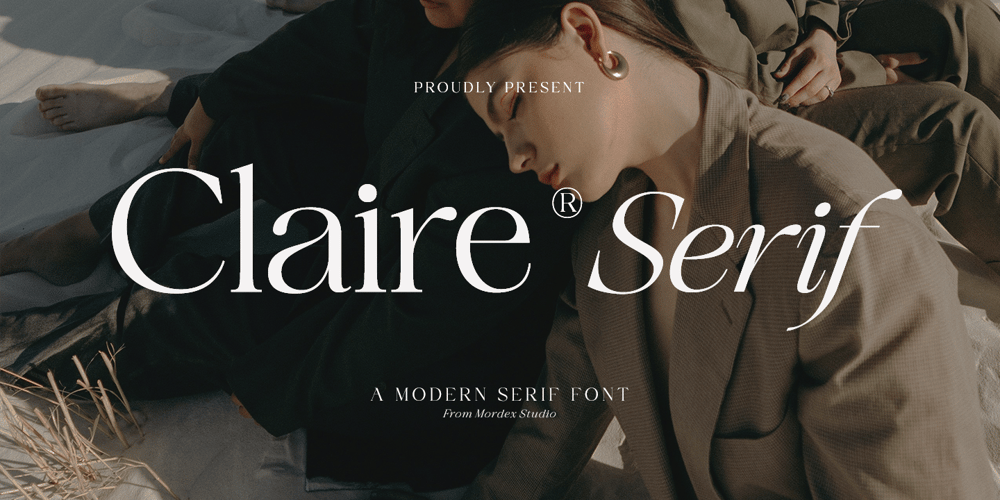
Claire Serif
Claire Serif font
Claire Serif Font Family was designed by Teuku Hamzah and published by Mordex Studio. Claire Serif contains 2 styles and family package options. Meet Claire Serif, a stunning serif font that wants to be the center of attention. Use this classic, refined serif for large-format headlines, big-text moments, or compelling quotes. Claire Serif is a weighty typeface that’s built to draw attention to the center of attention. With stunning contrast, organic curves, and sharp italics, Claire Serif is a phenomenal choice for branding projects or any typeface that focuses on luxury.